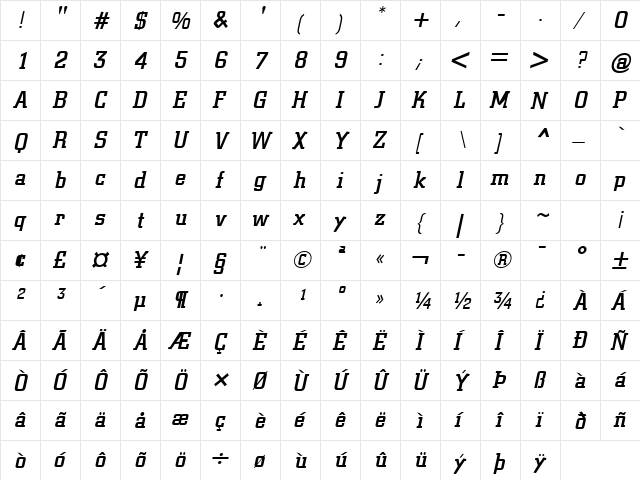
Center City Bold Oblique Font Preview
Design Context for Center City Typeface
Center City offers clean, dependable letterforms without strong stylistic allegiance, making it a practical choice for designers who need flexibility. Its italic angle brings a sense of urgency and motion to the letterforms. The heavy weight commands attention and anchors typographic hierarchies.
Pro Tip: Try Center City for annotation and caption copy alongside an upright companion — the contrast in angle creates a dynamic but ordered typographic system.